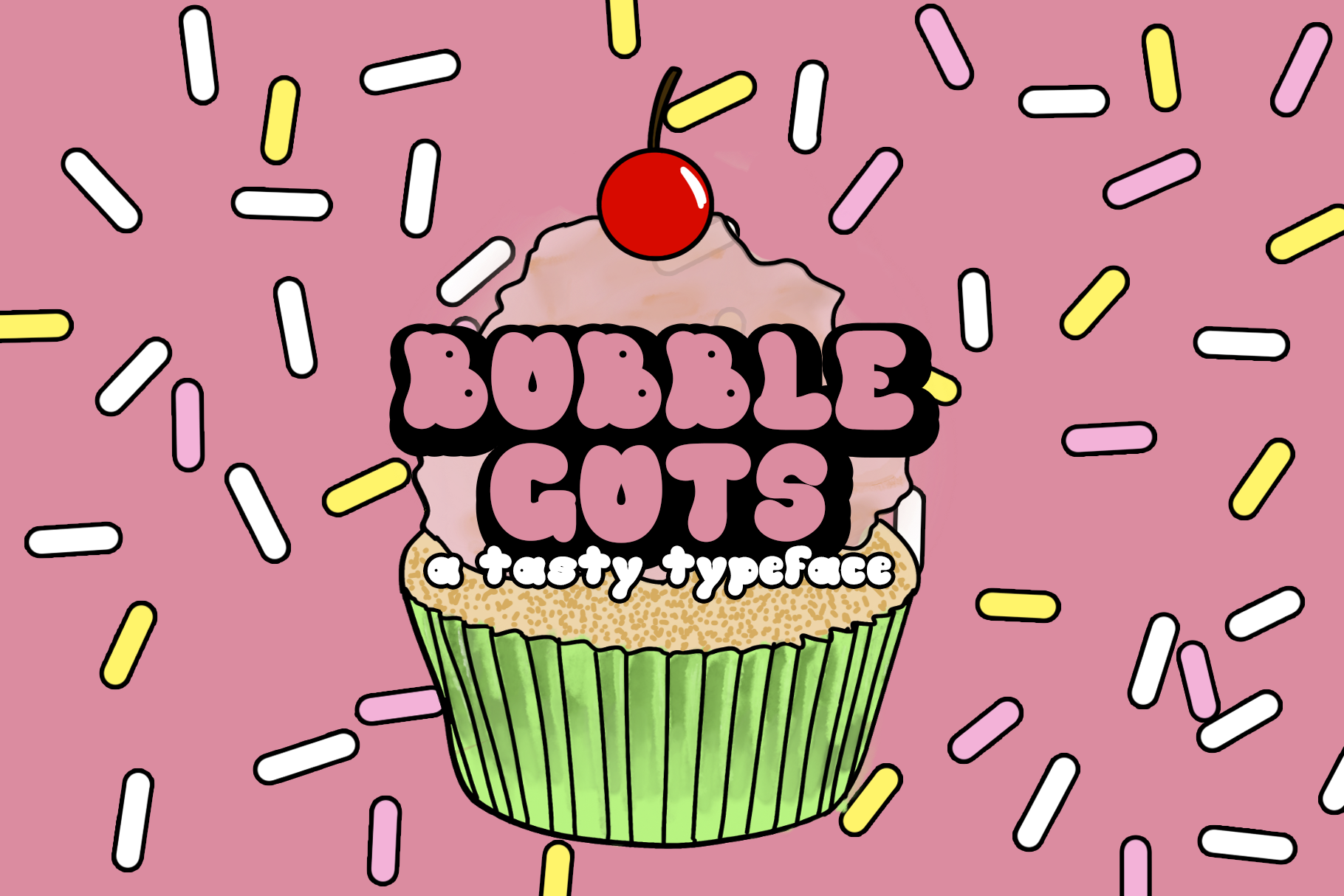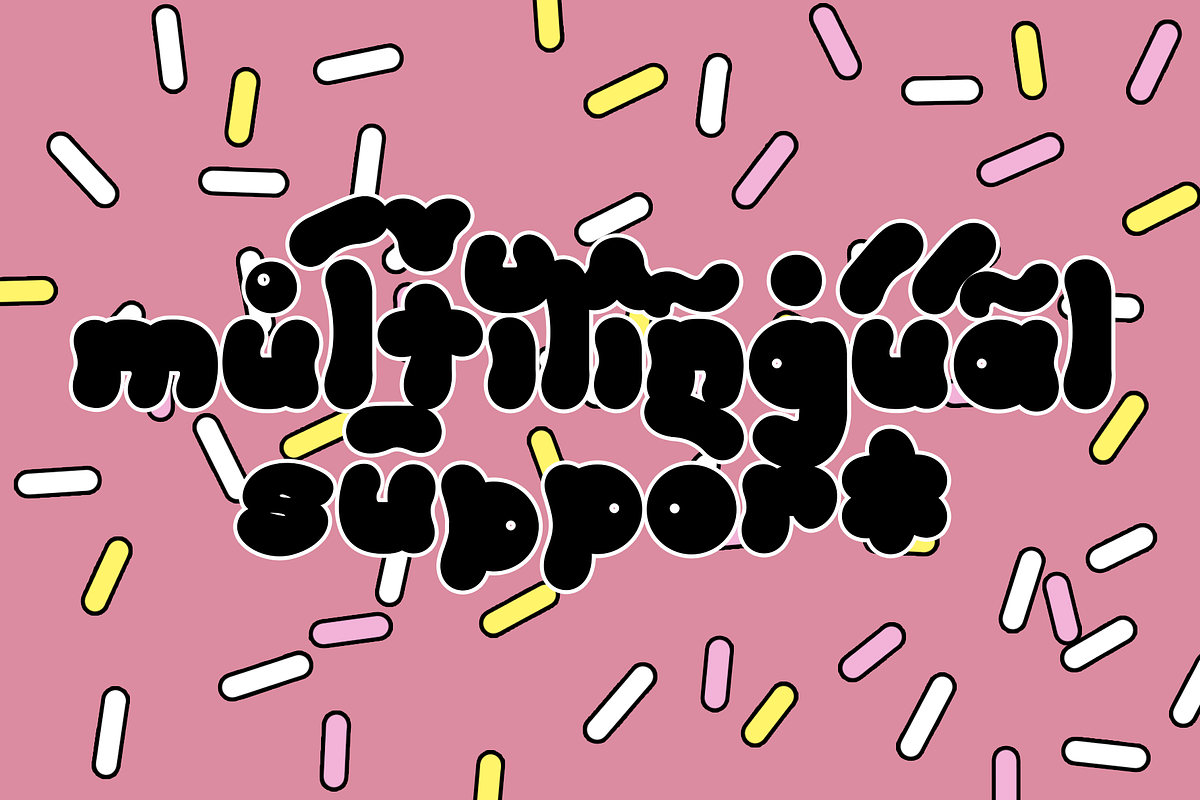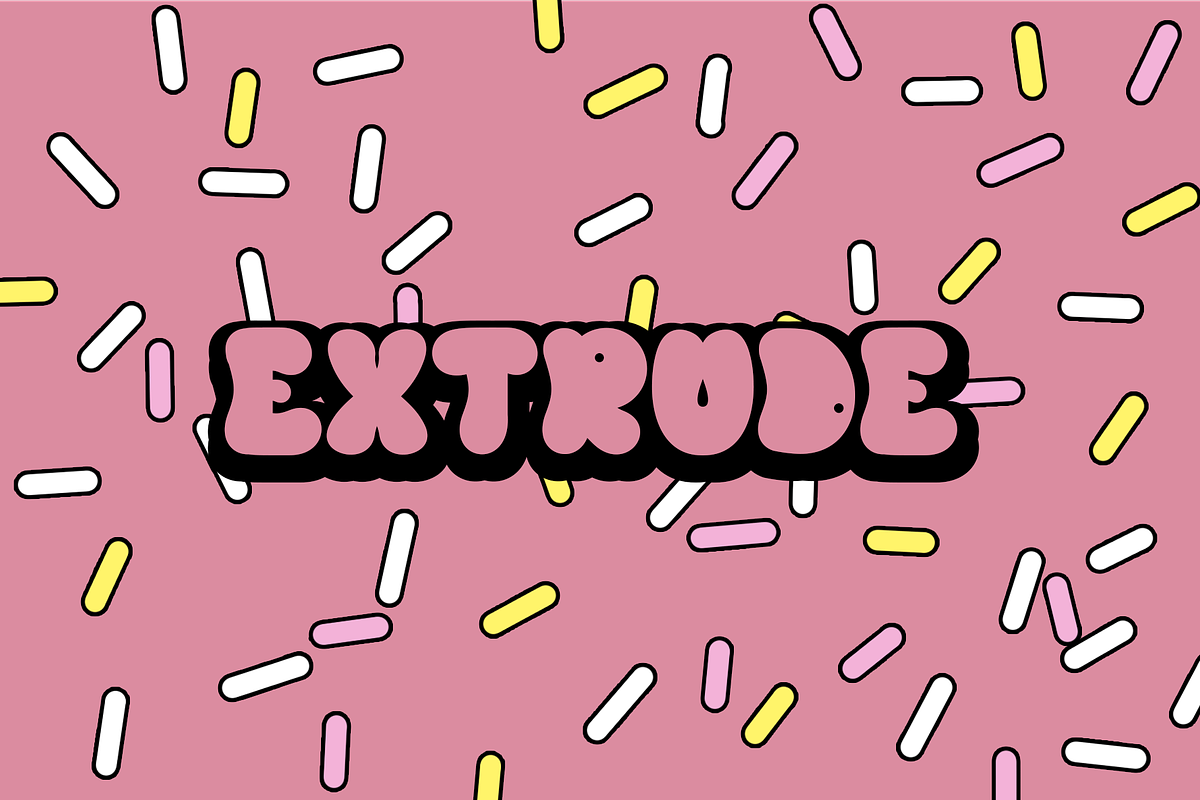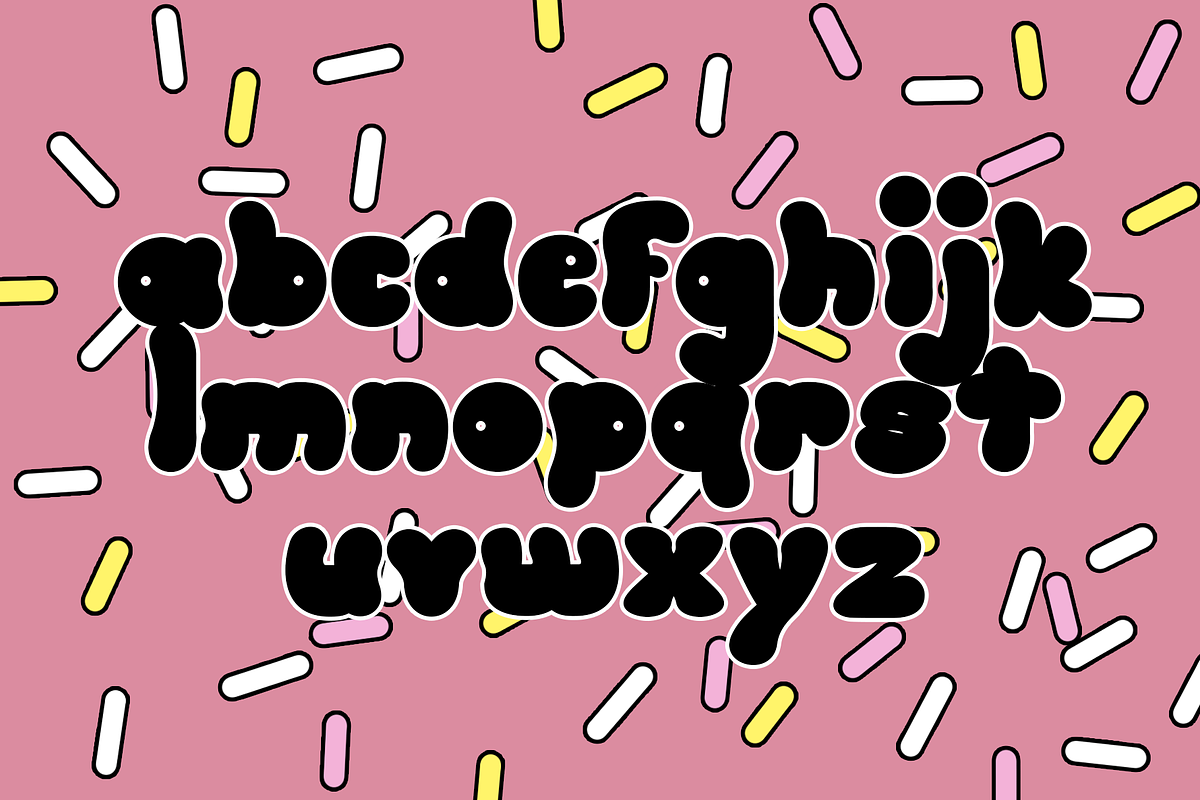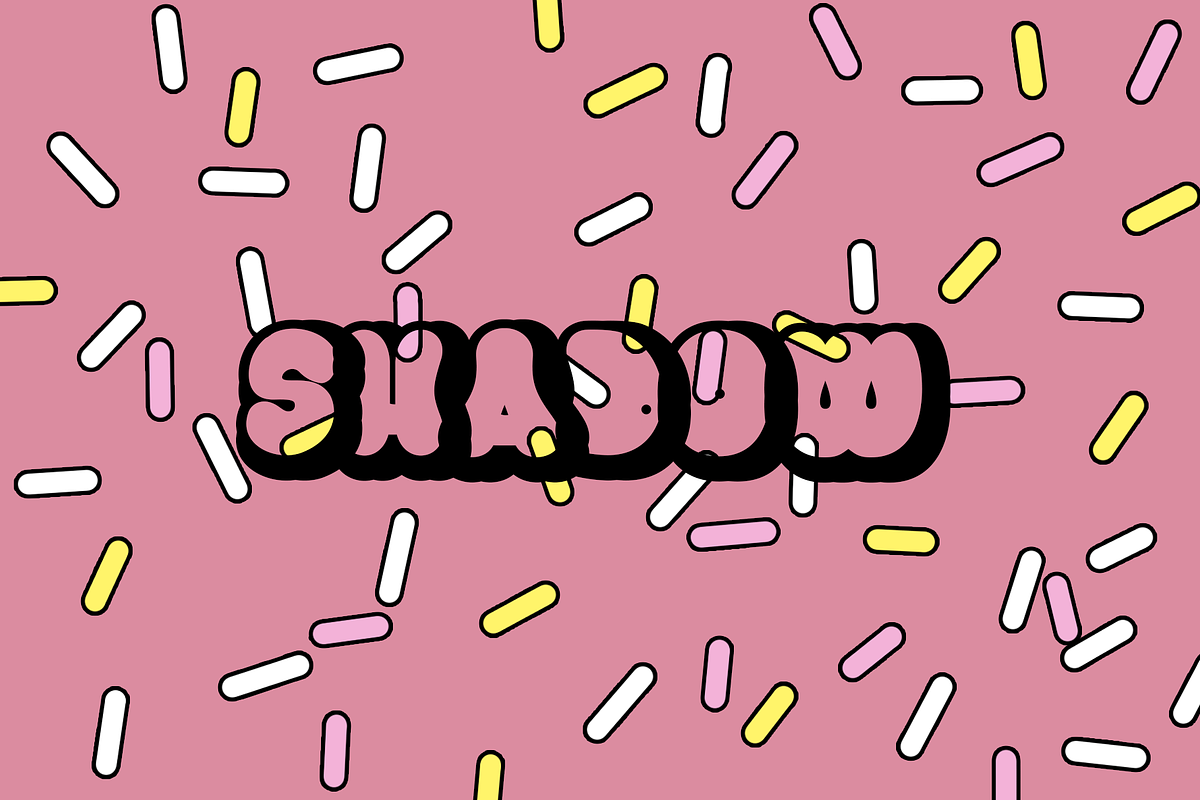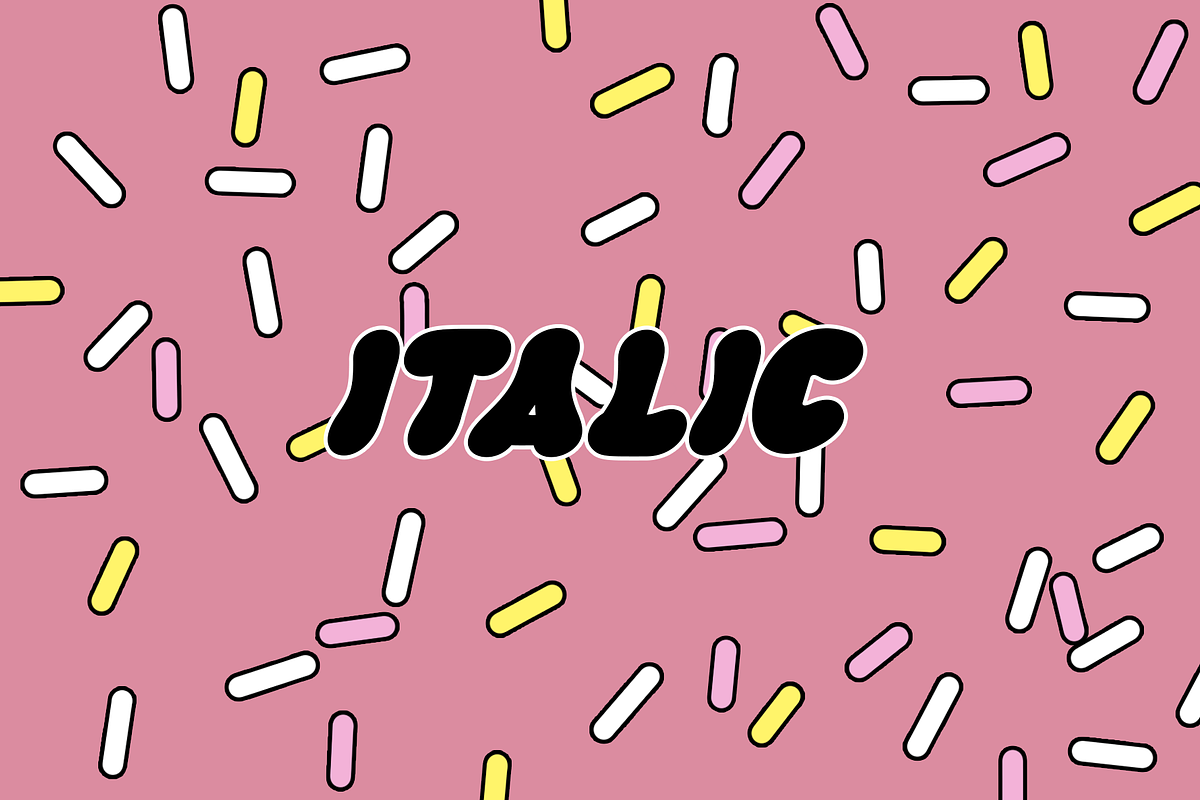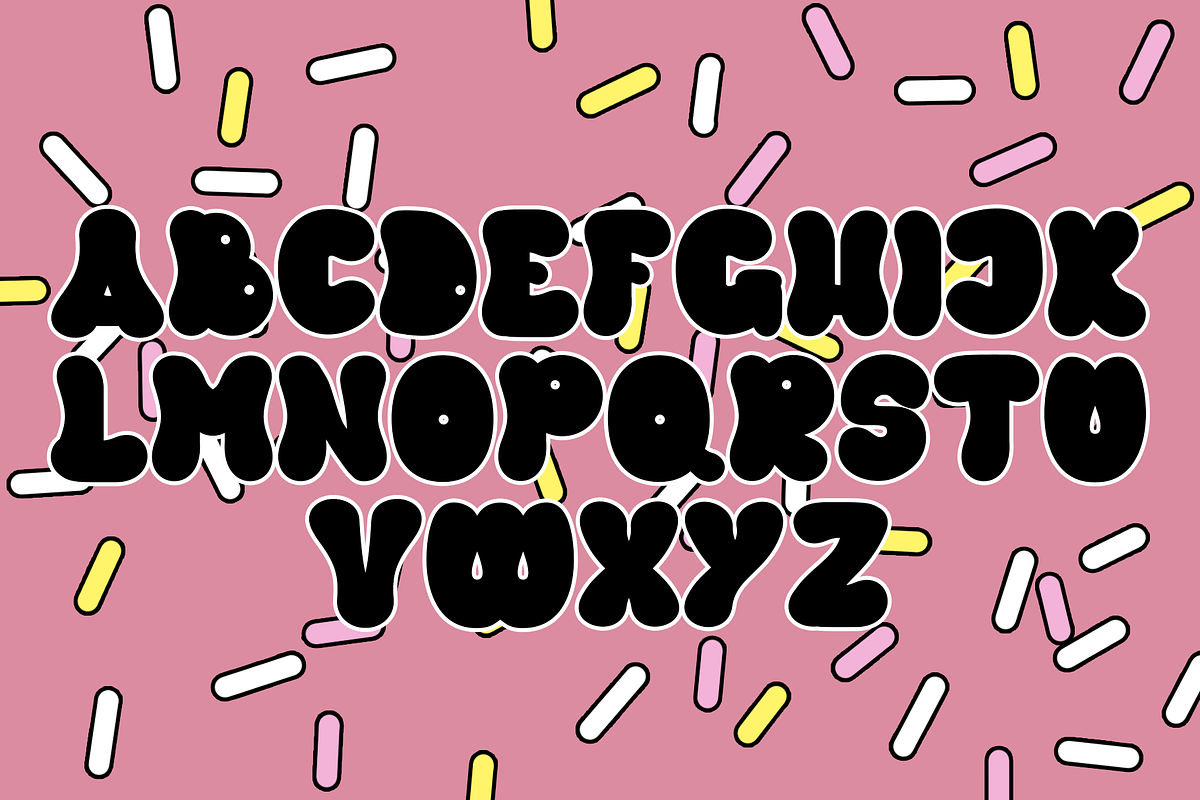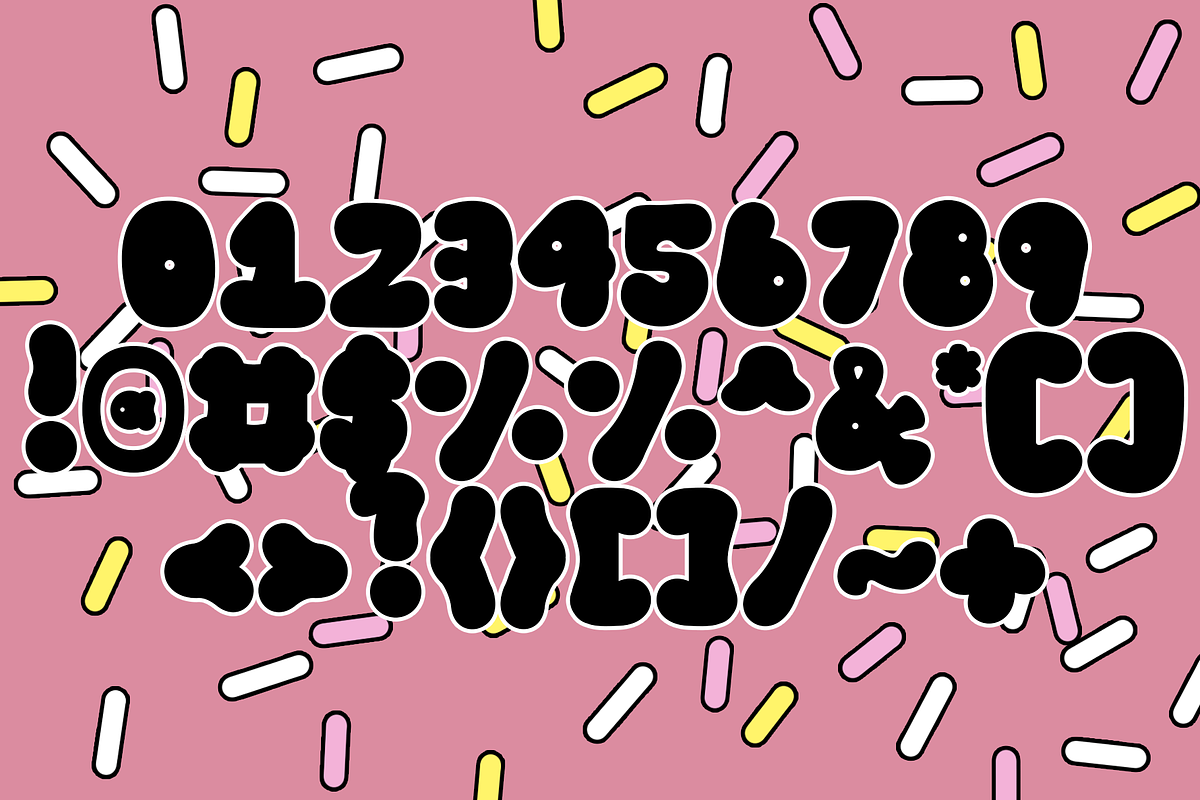
Bubble Guts Typeface
Bubble Guts is a whimsical typeface with four fonts. It is one of the few of its kind that has both uppercase and lowercase options, allowing the user versatility and legibility at the same time. Its four styles, Normal, Italic, Shadow, and Extrude, allow for the user to create a bevy of visual effects. It has a retro feel that makes it great for animations, invites, branding, and social media!
- Bubble Guts Regular
- Bubble Guts Italic
- Bubble Guts Shadow
- Bubble Guts Extrude
Layer these fonts to get all types of cool effects! Extrude is perfect for this; it allows for the user to fit the "Bubble Guts Regular" characters on top and create layers.